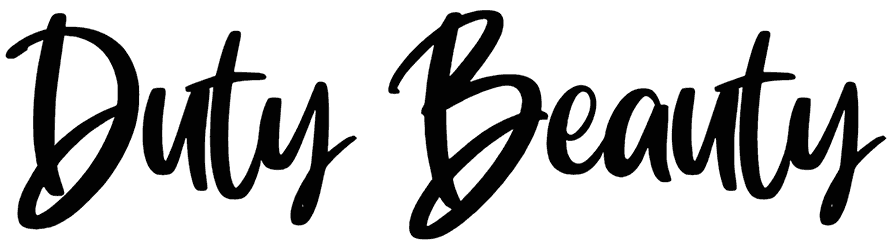
Duty Beauty Font
By choosing a beautiful outward that can be used for diverse designs with any theme, show your design with a warm and natural vibe. As a handwritten font, Duty Beauty has captivating brush lettering and mirrors an urban and beautiful vibe. Embed this brush font on your intended projects from banners to apparel, and be cool.